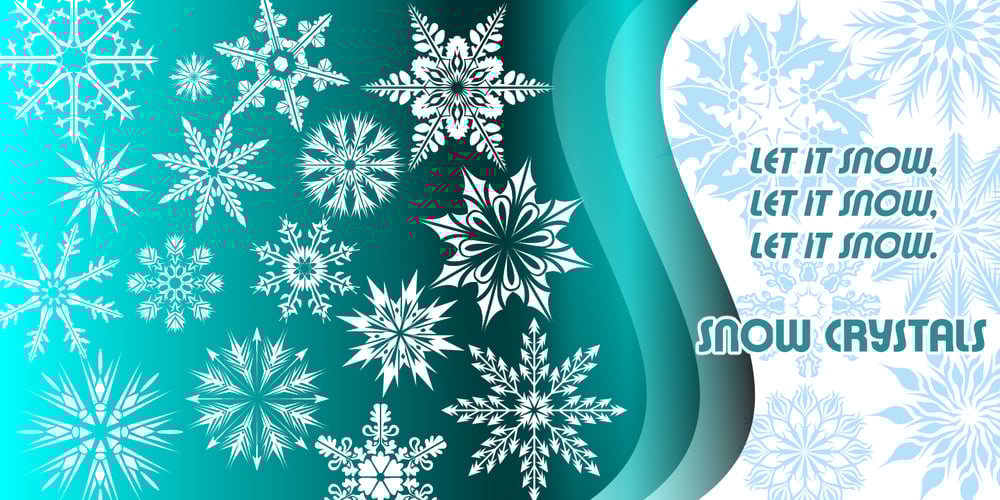
Snow Crystals
Snow Crystals font
Snow Crystals Font Family was designed by Denise Koehler and published by Deniart Systems. Snow Crystals contains 1 styles and family package options. It’s time to just let it snow! Deniart’s Snow Crystals typeface is an original design featuring 62 unique symbols. These charming snow crystals are sure to add elegance to all your winter designs – the set includes traditional style snow crystals as well as an assortment of bonus characters such as star-bursts and holiday accents. This font comes with a PDF guide to put all these special characters right at your fingertips! Note – if you want an even broader range of snow flakes, you may also like our second snow font known as “Star Crystals”.